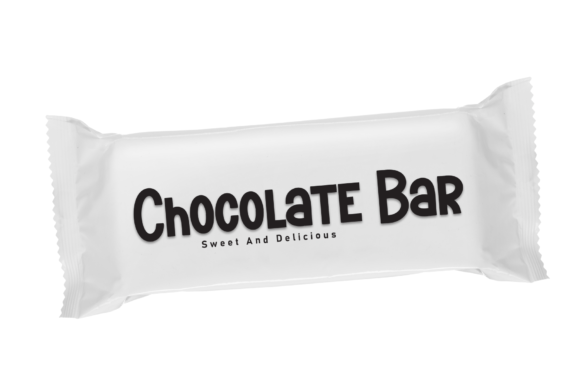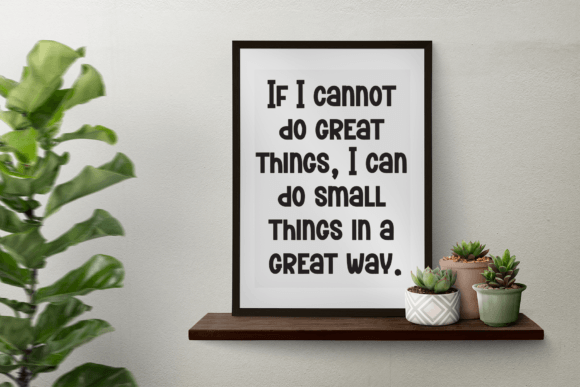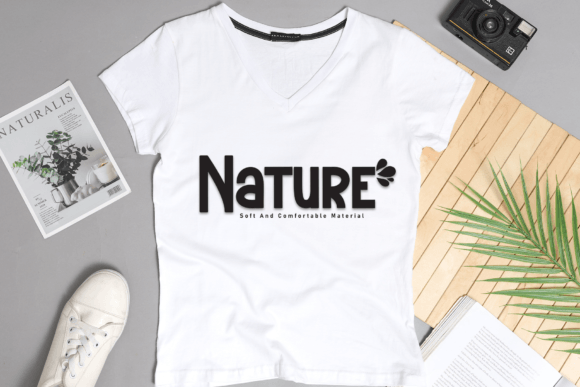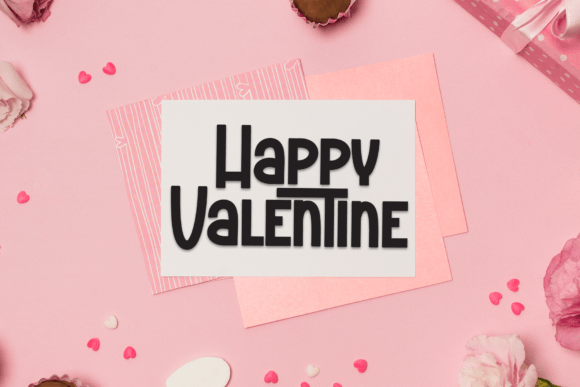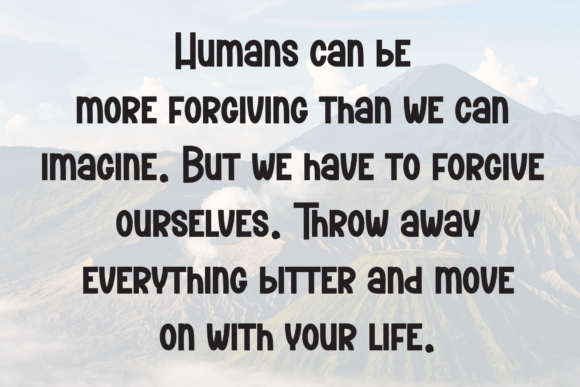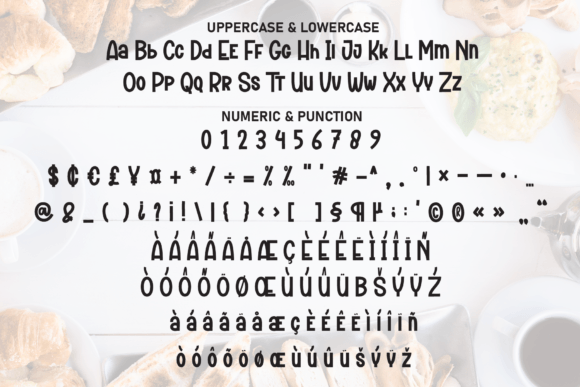
Breaking Through with Break Fast Font
As a designer, have you ever found yourself staring at a blank canvas, trying to conjure up the perfect font to convey your message? The frustration is real, but what if I told you that there’s a solution that can make your job easier? Introducing Break Fast Font, a clean and approachable sans-serif font that’s about to become your new go-to.
Break Fast Font is more than just a pretty face; it’s designed to deliver clear and concise communication in both digital and print formats. Its friendly character and clean lines make it perfect for user interfaces, informative signage, and modern branding. Whether you’re working on a web project or creating a print campaign, Break Fast Font ensures your message stands out and resonates with your audience.
So, what makes Break Fast Font so valuable for designers? For starters, it’s incredibly versatile and easy to read, making it a great choice for any project. Plus, its simplicity allows it to blend seamlessly with any design style, from modern to minimalist.
• Unique Characteristics: Break Fast Font features a distinctive, modern design with a mix of geometric and organic elements, making it ideal for use in branding, advertising, and editorial contexts.
• Kerning and Ligatures: Break Fast Font includes advanced kerning and ligature pairs, ensuring smooth and even text rendering, even in complex layouts.
• Font Weight and Style: The font is available in 5 weights, ranging from Light to Black, as well as 3 styles, including Regular, Italic, and Oblique, providing flexibility for a wide range of design applications.
Break Fast Font Review
Overall, I think Break Fast Font is an interesting choice for designers looking for a unique sans-serif typeface. Here are my thoughts:
• Break Fast Font has a clean and modern aesthetic that’s perfect for digital designs.
• The font is highly legible, even at smaller sizes, making it ideal for body text.
• The font’s rounded edges give it a friendly and approachable feel.
• The font’s uniqueness can be both a blessing and a curse – it may not be suitable for all design projects.
• The font lacks a bold weight, which may limit its use in certain situations.
• Break Fast Font may not be the best choice for designs that require a lot of typographic hierarchy.
Overall, I think Break Fast Font is a solid choice for designers who want to add a touch of modernity to their designs. However, it may not be the best fit for every project. With a little creativity, it can be a great addition to your design toolkit.
Tips for Getting the Most Out of Break Fast Font
Break Fast Font is ideal for creative projects that require a unique and eye-catching font. Some tips for getting the most out of it include:
• Use it in combination with bold and italic styles to add emphasis.
• Experiment with different font sizes to create visual hierarchy.
• Use it for headings and titles to make a statement.
Break Fast Font is commonly used in creative projects such as:
• Graphic design and branding.
• Wedding invitations and stationery.
• Marketing materials and advertisements.